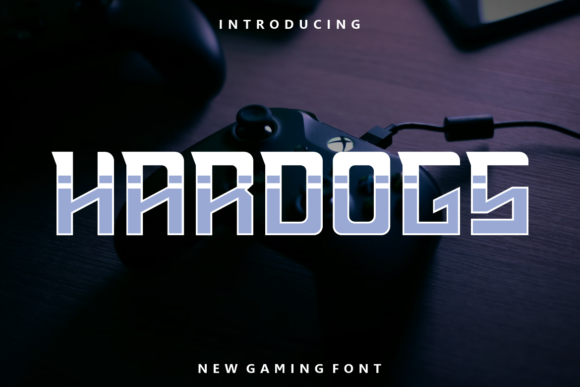
Hardogs: A Bold, Versatile Display Font for Modern Design
Hardogs is a striking display font that stands out for its thick, bold, and confident lettering. Designed for impact, it’s ideal for projects where visual presence matters most. Whether you're working on a logo, t-shirt design, or sports branding, Hardogs delivers a strong, memorable aesthetic that commands attention.
Understanding the Characteristics of Hardogs
At first glance, Hardogs is immediately recognizable by its heavy weight and aggressive stroke thickness. The font maintains clarity even at smaller sizes, making it suitable for both large-scale and compact applications. Its clean, geometric structure ensures legibility without sacrificing style, which is crucial for effective communication in any context.
The letterforms are consistent and well-proportioned, with sharp edges and minimal ornamentation. This simplicity allows Hardogs to blend seamlessly into various design styles while maintaining its distinct identity. Its versatility makes it a valuable addition to any designer’s toolkit, especially when a strong, modern look is required.
Practical Applications and Real-World Performance
Hardogs excels in scenarios where boldness is an asset. For instance, in logo design, it can convey strength, energy, and confidence—qualities often sought after in brands targeting dynamic audiences. Its thick strokes make it highly visible, which is beneficial for signage, banners, and other public-facing materials.
In t-shirt printing, Hardogs adds a sense of edginess and uniqueness. It works well for graphic designs that aim to stand out in crowded markets. Similarly, in sports branding, the font reinforces a sense of power and determination, aligning with the competitive spirit of athletic teams and events.
When used in digital formats, Hardogs retains its sharpness and clarity across different screen sizes. This reliability ensures that the font performs consistently whether it's displayed on a website, social media post, or mobile app interface.
Strengths and Usability Considerations
One of the key strengths of Hardogs is its adaptability. It can be paired effectively with other fonts to create balanced compositions. For example, combining it with a sans-serif or serif typeface can add contrast and depth to a design, preventing it from feeling too one-dimensional.
Its usability extends beyond just aesthetics. Designers appreciate its readability in both print and digital formats, which is essential for maintaining professionalism and clarity. The font also supports a wide range of languages, making it a practical choice for international projects.
However, due to its thick and bold nature, Hardogs may not be the best choice for body text. It’s more suited for headlines, titles, and short phrases where visual impact is the priority. Using it excessively could lead to a cluttered or overwhelming appearance, so moderation is key.
Who Benefits Most from Hardogs?
Entrepreneurs and small business owners looking to create a strong brand identity will find Hardogs particularly useful. Its bold character helps establish a memorable presence in competitive markets. Marketers and advertisers can leverage it to craft eye-catching campaigns that resonate with target audiences.
Designers, illustrators, and creative professionals will appreciate the font’s ability to add visual interest without requiring complex styling. It’s a go-to option for projects that demand a modern, high-impact look. Educators and publishers may also benefit from using Hardogs in educational materials or presentations where emphasis is needed.
For hobbyists and independent creators, Hardogs offers a way to elevate personal projects, whether it's a custom artwork, a DIY t-shirt, or a branded product. Its accessibility and ease of use make it approachable for those who may not have extensive design experience.
Quality, Reliability, and Long-Term Value
Hardogs is developed with attention to detail, ensuring that each character is consistent and well-crafted. This level of quality contributes to its reliability in professional settings, where precision and consistency are paramount. The font is typically available in multiple weights and styles, offering flexibility for different design needs.
From a long-term perspective, Hardogs provides value through its enduring appeal. Trends in typography evolve, but fonts with strong, timeless characteristics tend to remain relevant. Hardogs’ bold and straightforward design ensures it remains a useful tool for years to come.